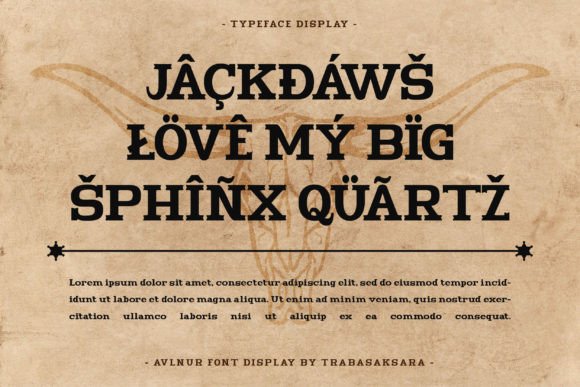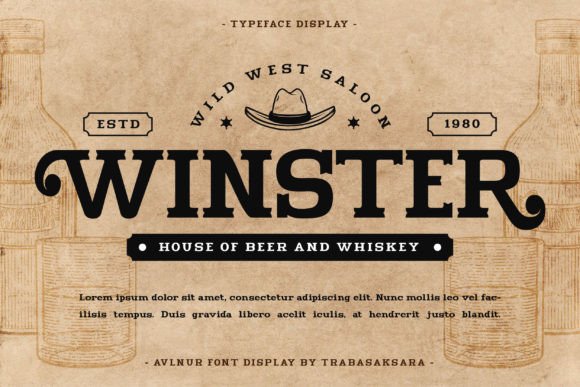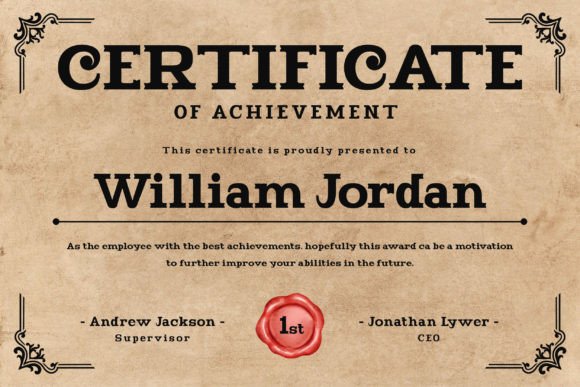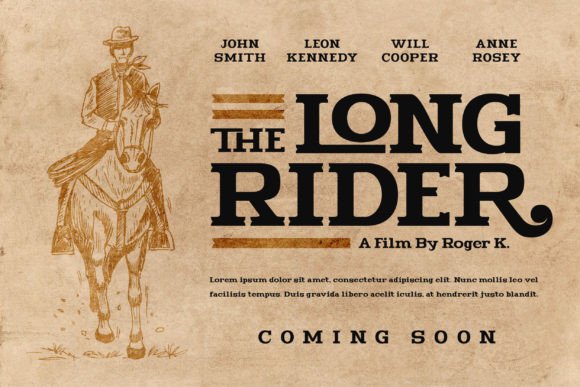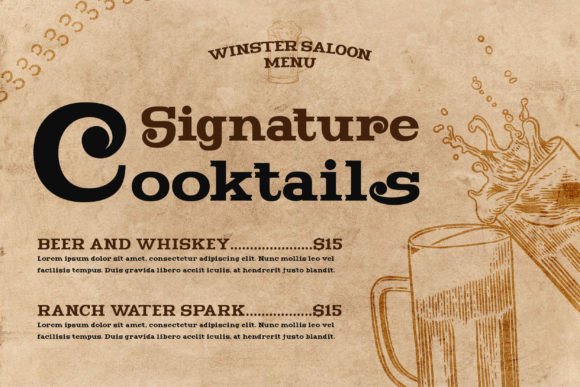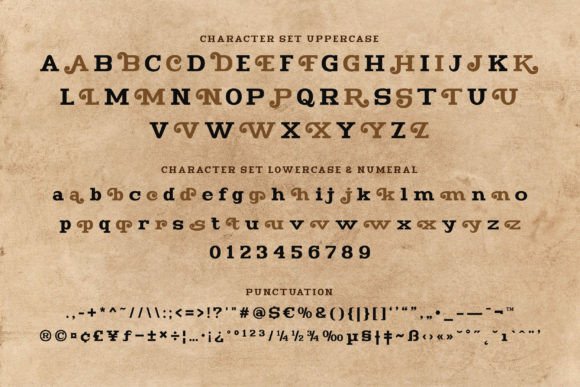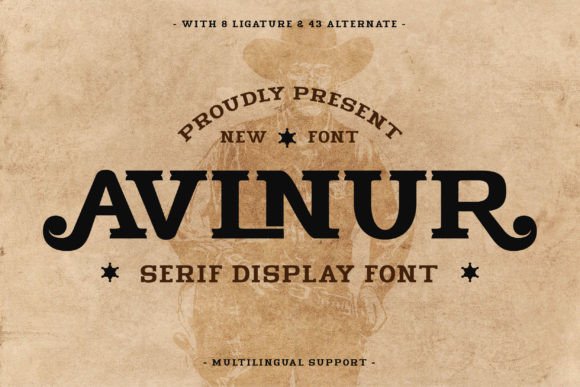
Introducing Avlnur Font: Elevate Your Designs with Elegance and Modernity
What Makes Avlnur Font Special?
Avlnur Font is a beautifully crafted typeface that combines elegance and modernity, making it perfect for designers, crafters, and creative hobbyists. Its unique blend of sophistication and style will leave a lasting impression on your audience.
- ✨ Elegant letterforms with precise details
- ✅ Suitable for a wide range of design applications, including branding, logo design, packaging, and more
- 💡 Perfect for creating refined invitations, striking headlines, and eye-catching designs
What I Love About Avlnur Font
- ✨ The font’s versatility allows me to experiment with different design styles and applications.
- ✅ The elegant letterforms and precise details make it perfect for luxury branding and high-end designs.
- 💡 The font’s unique blend of modernity and sophistication sets it apart from other typefaces.
While Avlnur Font is an excellent choice for many designs, there are a few quirks to consider:
- ⚠️ The font may not be suitable for body text due to its elegant and refined nature.
- 🤔 Some users may find the font’s uniqueness challenging to pair with other typefaces.
Avlnur Font was inspired by the works of renowned typographers and designers who sought to create a unique and captivating typeface. The font’s creator aimed to craft a typeface that would exude elegance and sophistication while maintaining a modern and fresh feel.
| Q: What makes Avlnur Font unique? | A: Avlnur Font’s unique blend of elegance and modernity sets it apart from other typefaces. |
| Q: Is Avlnur Font suitable for body text? | A: While Avlnur Font is elegant and refined, it may not be suitable for body text due to its luxurious and high-end feel. |
Avlnur Font is a stunning typeface that will elevate your designs to new heights. With its unique blend of elegance and modernity, it’s perfect for designers, crafters, and creative hobbyists seeking a distinctive and attention-grabbing typography solution. Don’t settle for ordinary fonts – make a statement with Avlnur Font and take your designs to the next level.